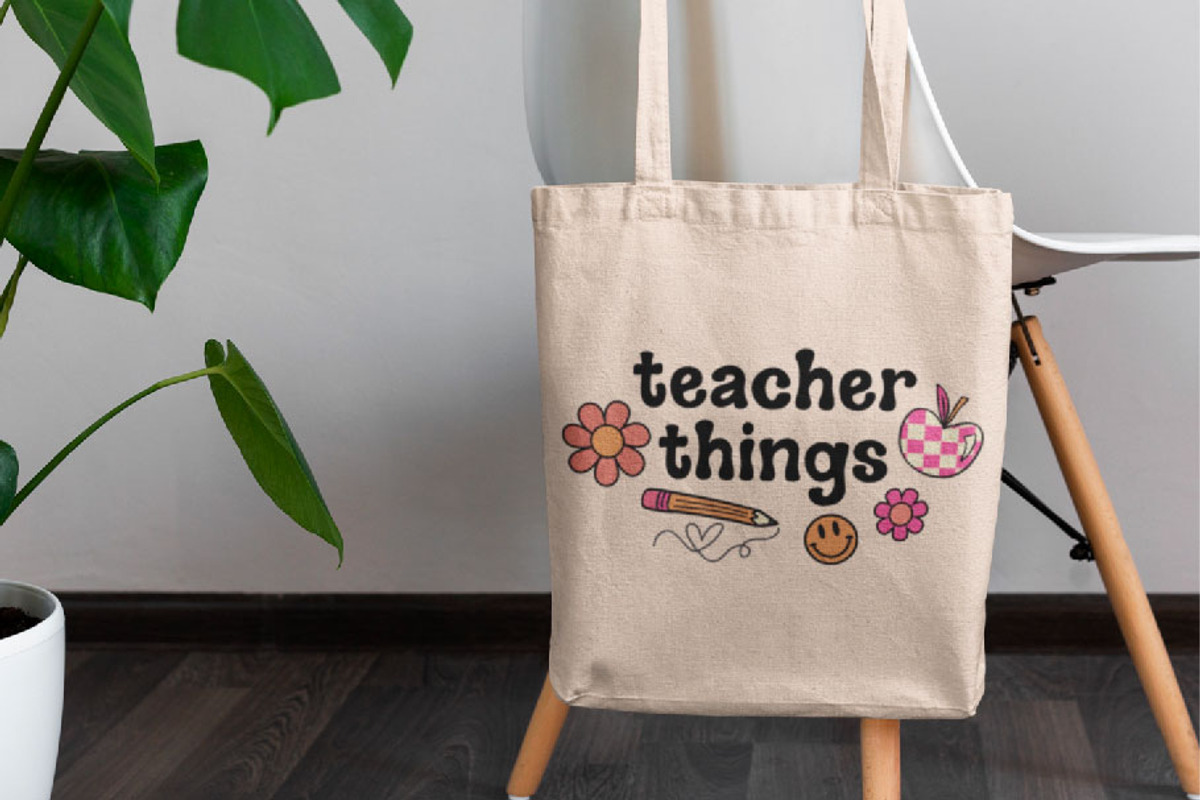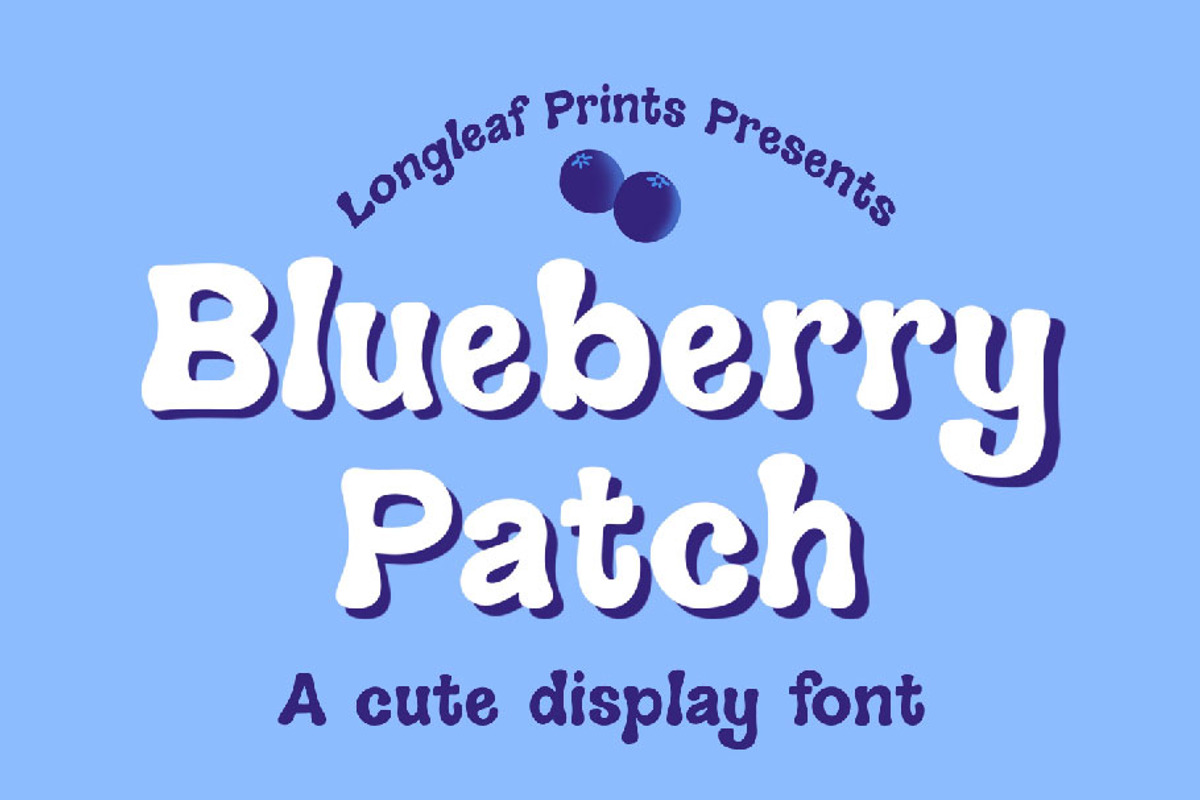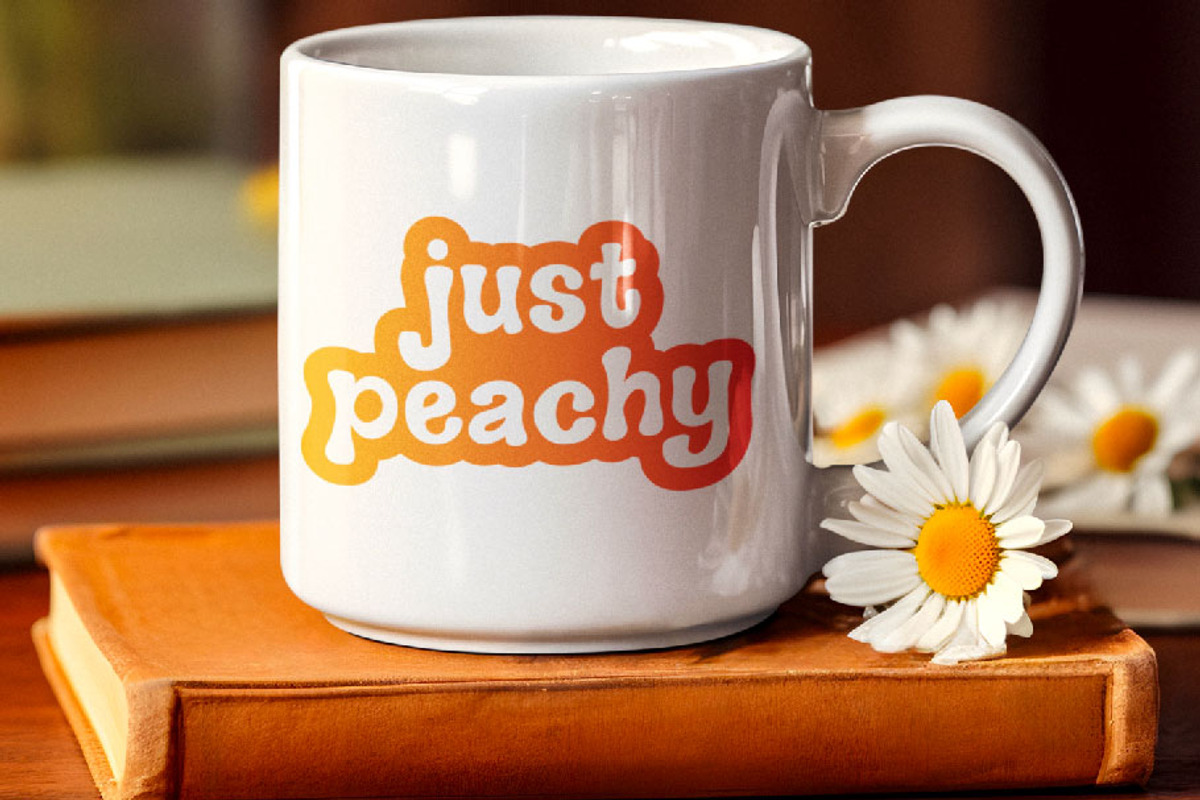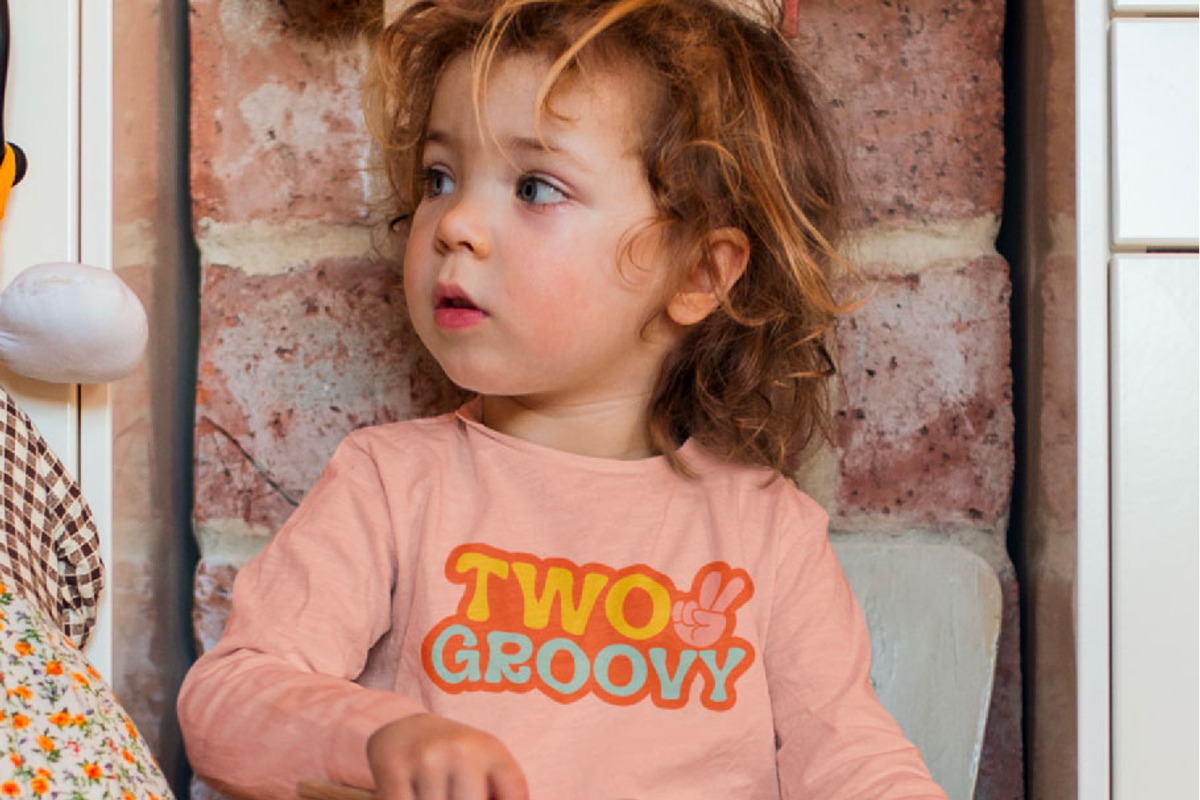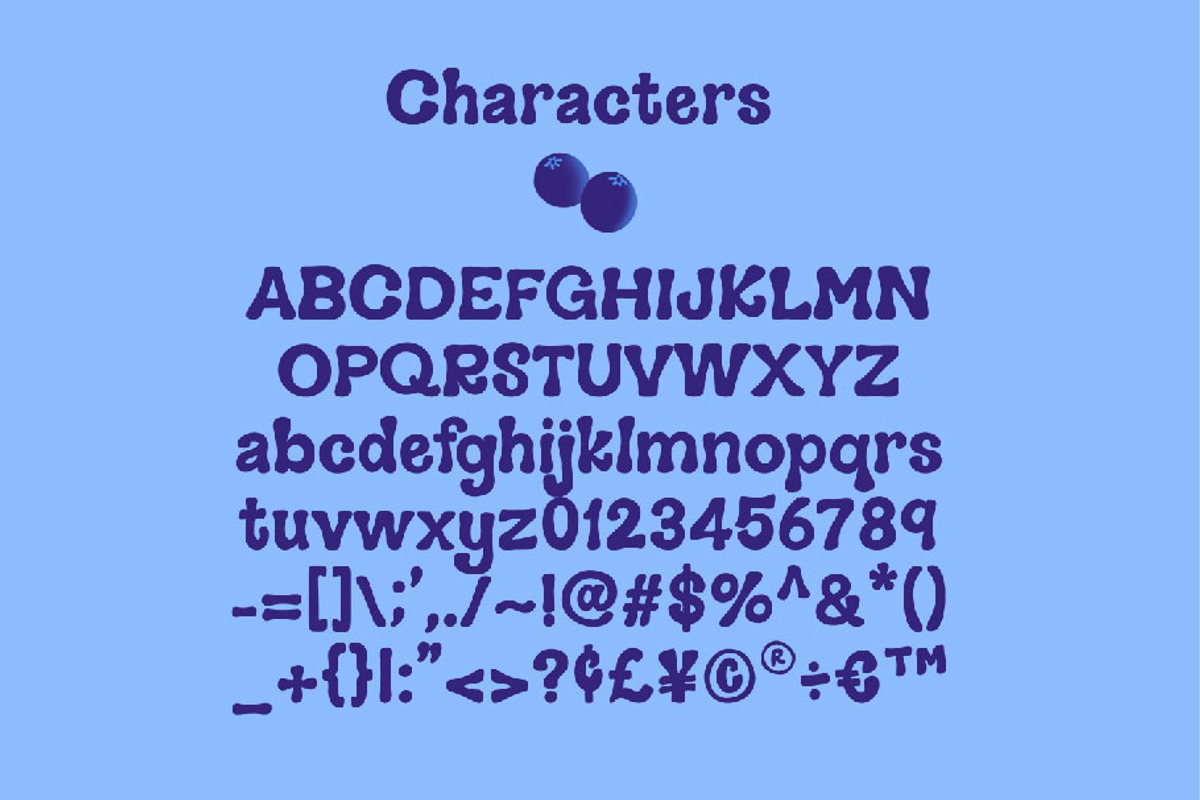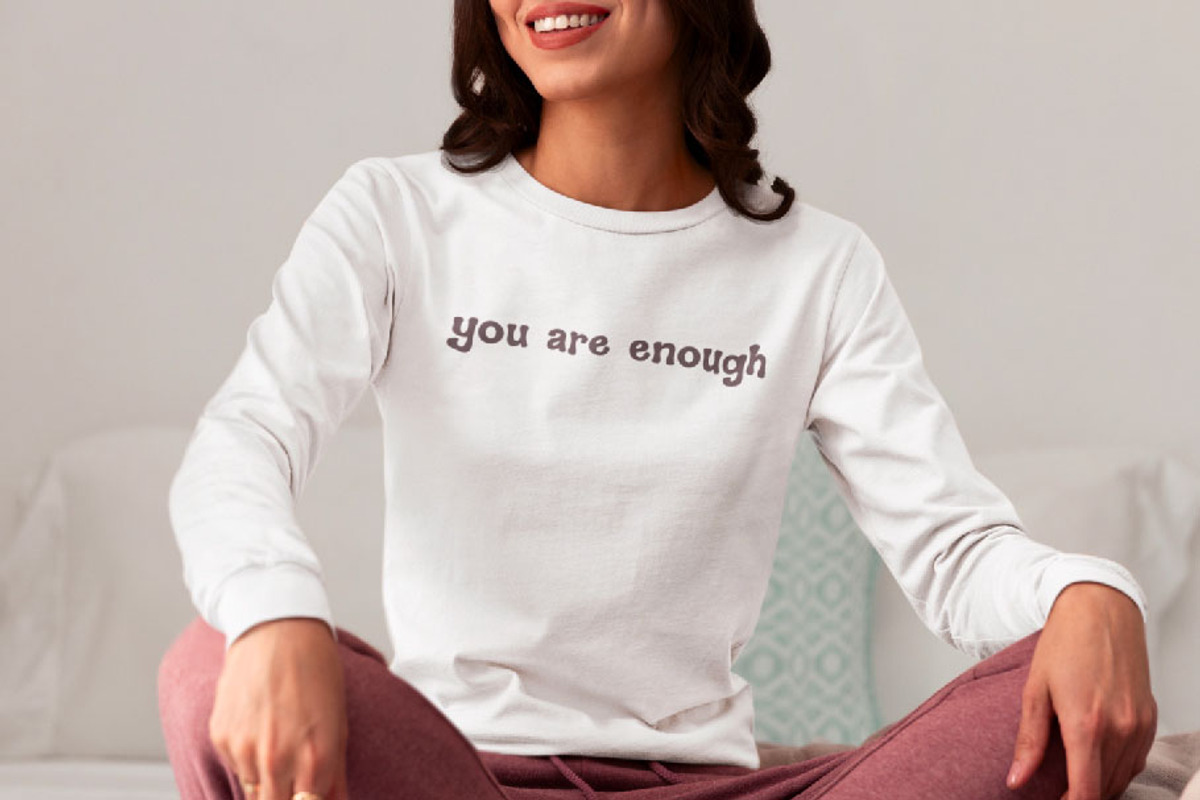
Blueberry Patch Handwritten Font
Blueberry Patch is a handwritten, display font.
Perfect for branding, product design, digital products, graphic tees, logos, and more!